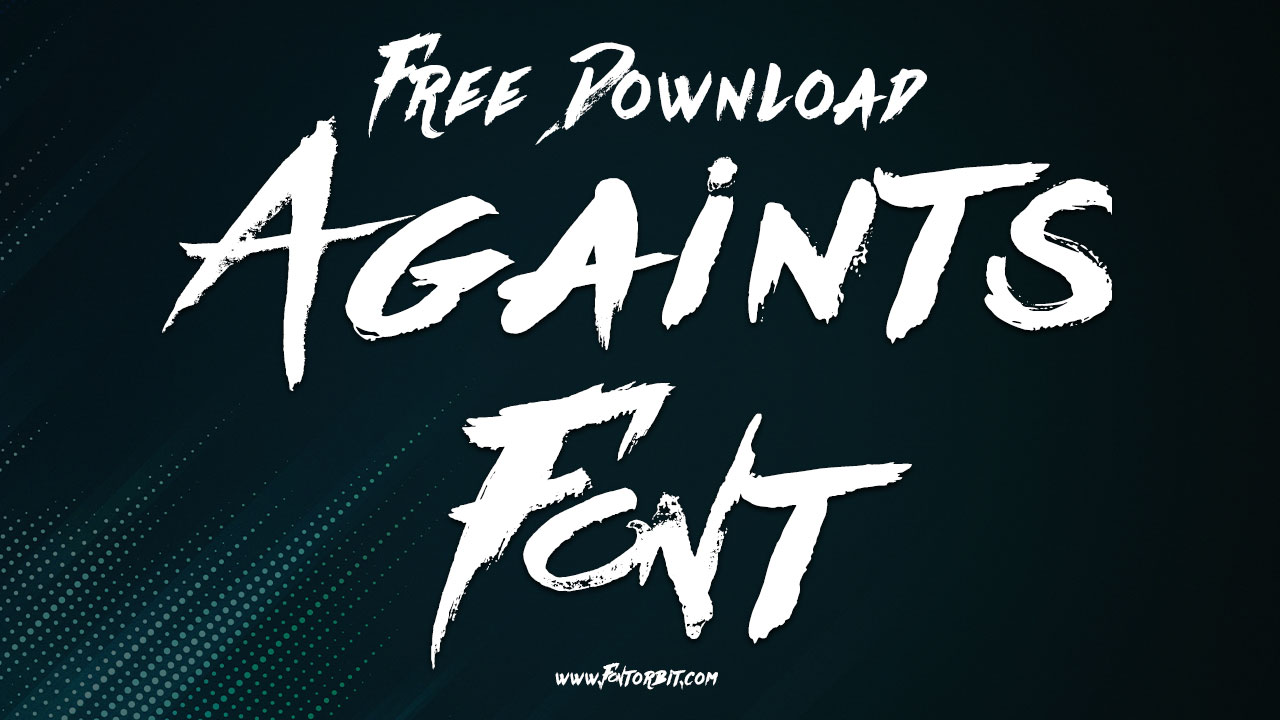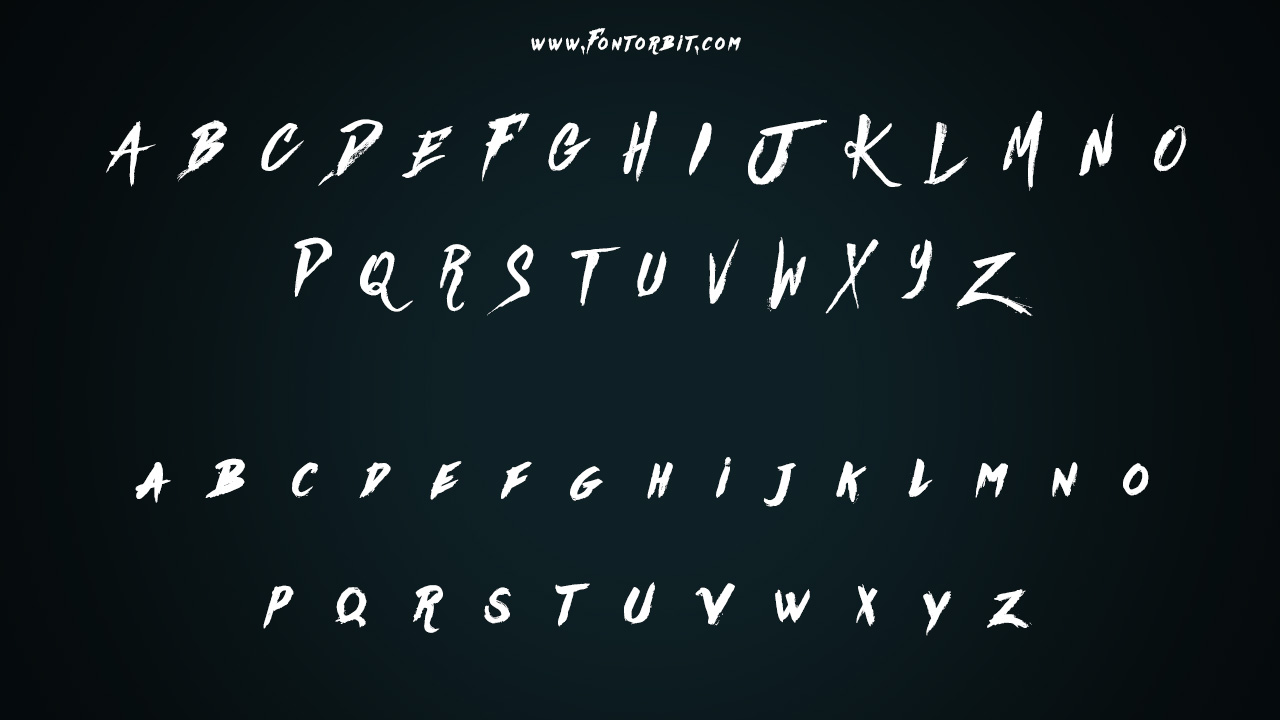
The Againts Font, designed by Ramandhani Nugraha and graciously shared as a demo by Fortunes Co., is a modern script typeface inspired by the expressive qualities of hand-drawn brush lettering. Its elegant and dynamic letterforms add a touch of sophistication and creativity to a variety of design projects.
- Greeting Cards
- Magazine Titles
- Business Cards
- Quotes
- Signatures
- Wedding Invitations
- Creative Collages
Againts Font’s modern script style and handmade calligraphy make it perfect for designs that require a stylish, artistic touch. Its elegant curves and expressive strokes are ideal for both personal and professional design applications.
Againts Font offers a blend of elegance, expressiveness, and versatility. Its unique brush lettering and modern aesthetic make it an excellent choice for adding a creative and refined touch to your design projects. The demo version provides an opportunity to experience its charm, while the full version offers enhanced features and a commercial license.
Againts Font is a modern script typeface inspired by hand-drawn brush lettering. It features elegant, expressive letterforms that add sophistication and creativity to designs.
3.What Are The Key Features Of The Againts Font?
Key features include its handmade calligraphy style, modern script aesthetics, versatility for various designs, and customization options such as alternate glyphs and ligatures.
Use Againts Font for greeting cards, magazine titles, business cards, quotes, posters, and more to add a stylish and artistic touch to your work.